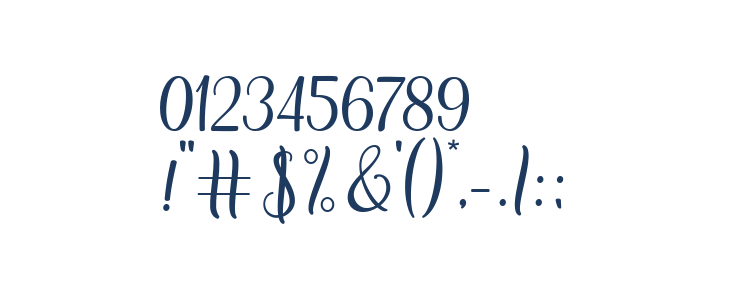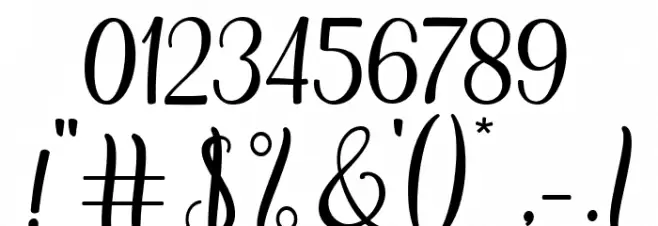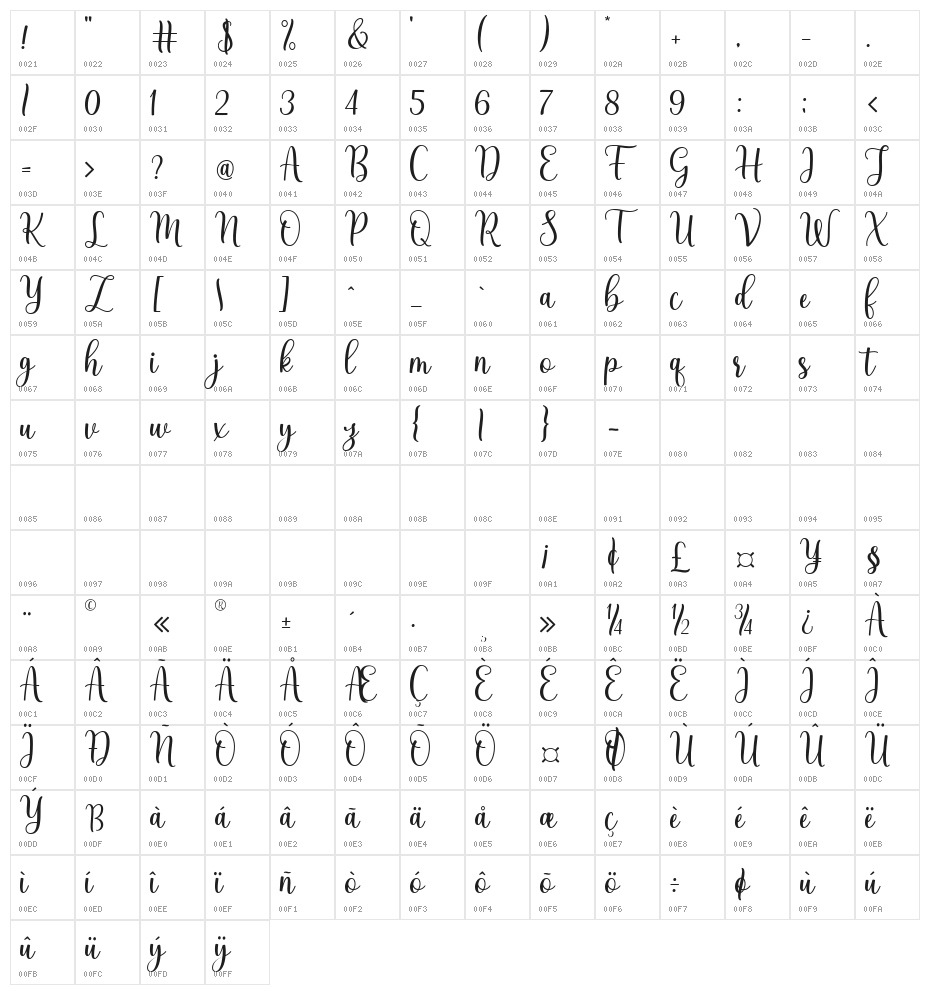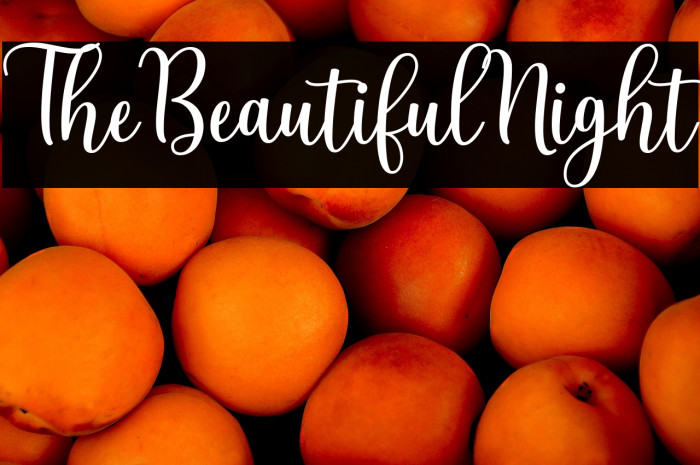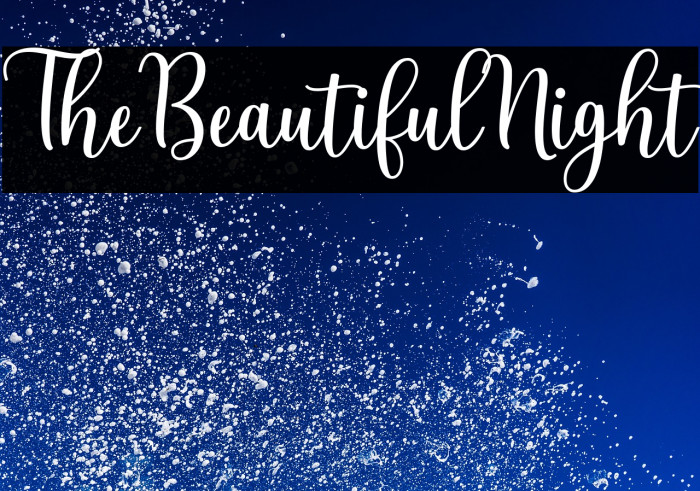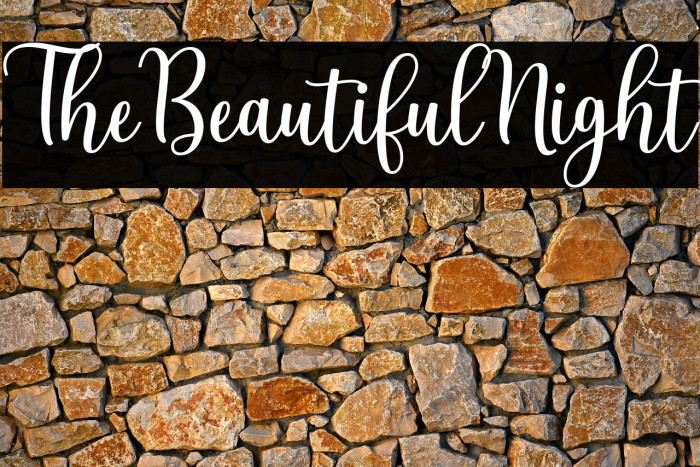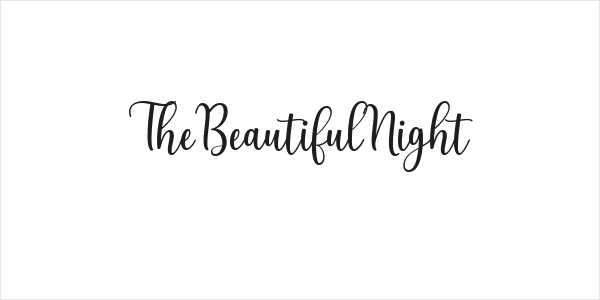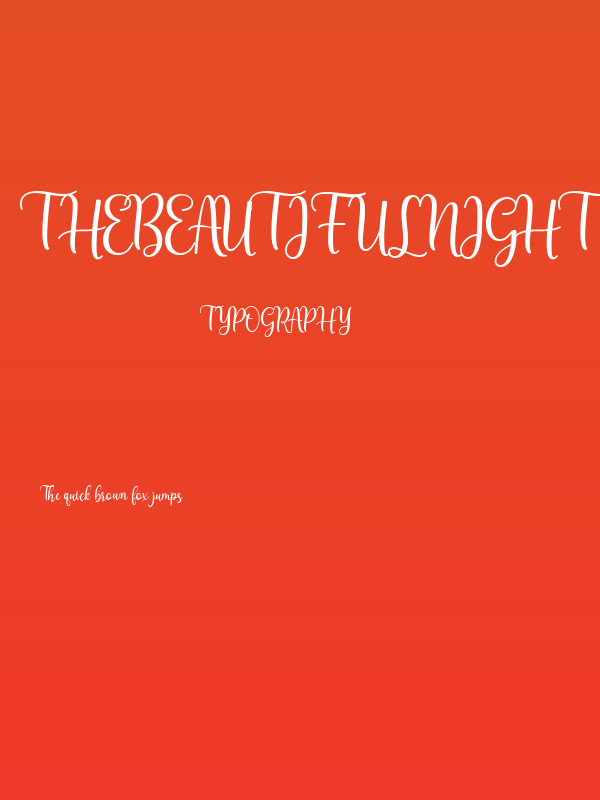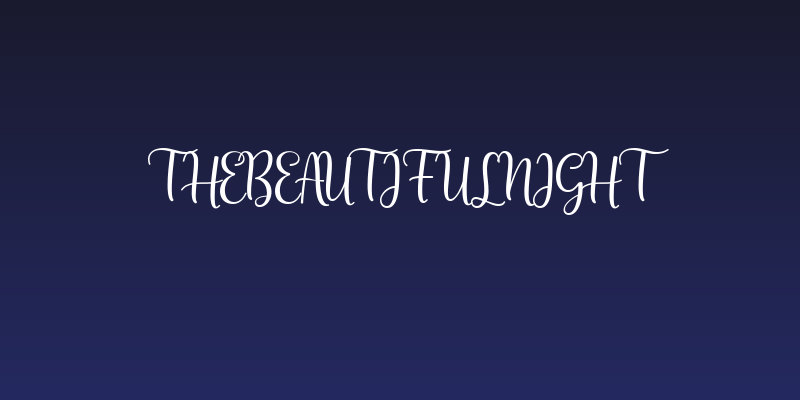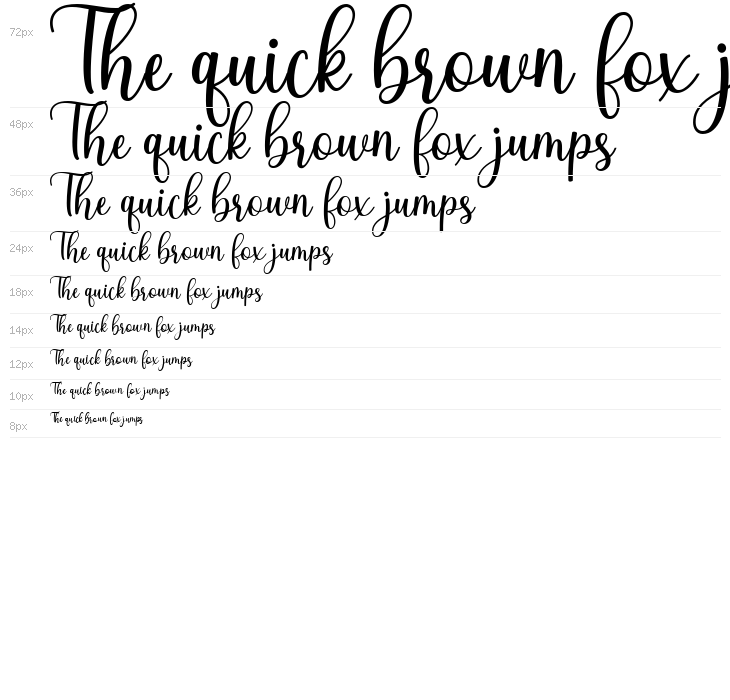
TheBeautifulNight Font
TheBeautifulNight Description
This font features an elegant and flowing script style, characterized by its smooth, cursive letterforms that exude a sense of grace and sophistication. The uppercase letters are tall and slender, with gentle curves and loops that add a touch of whimsy. The lowercase letters maintain a consistent flow, with some letters featuring distinctive loops and swashes that enhance the font's decorative appeal. The numerals are designed to match the overall style, with a slight slant and rounded edges. Special characters are thoughtfully integrated, maintaining the font's cohesive and artistic look. This font is perfect for projects that require a touch of elegance and creativity.
| Proposed Projects | Ideal for wedding invitations, greeting cards, branding, and elegant packaging. |